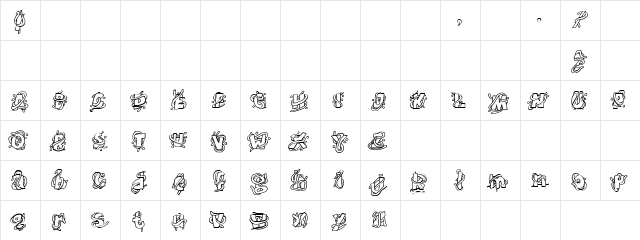
Crane Safari Regular Font Preview
Crane Safari Regular
Design Context for Crane Safari Typeface
Crane Safari is a composed and adaptable typeface that performs quietly and consistently across a wide range of design contexts.